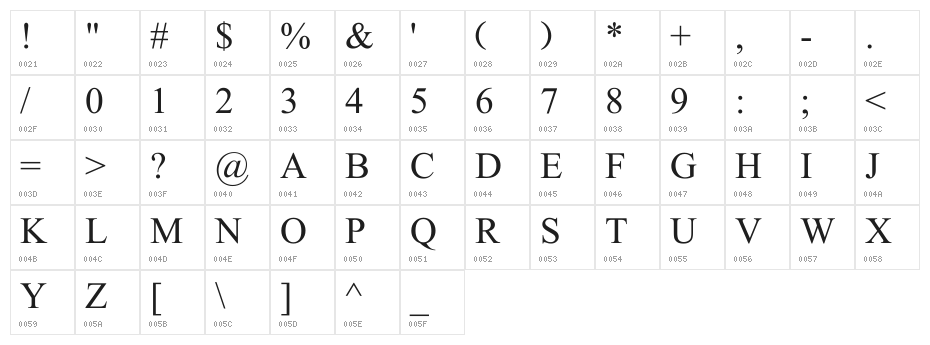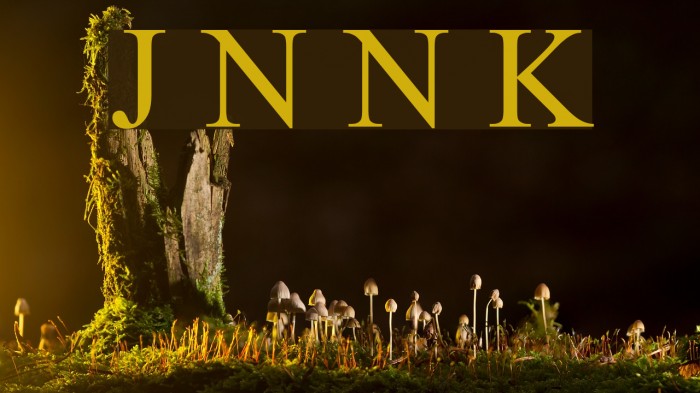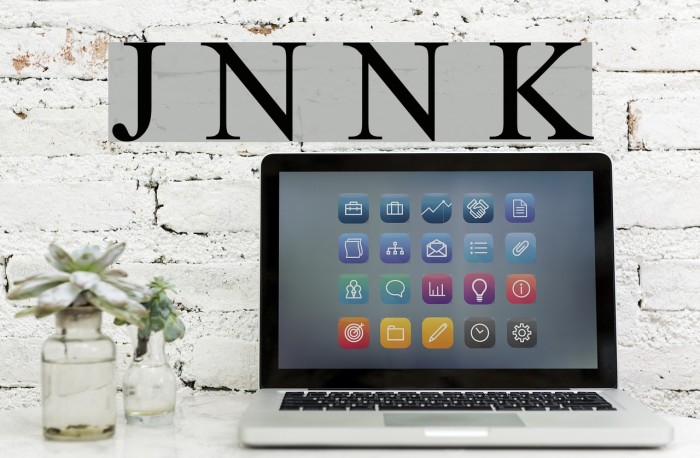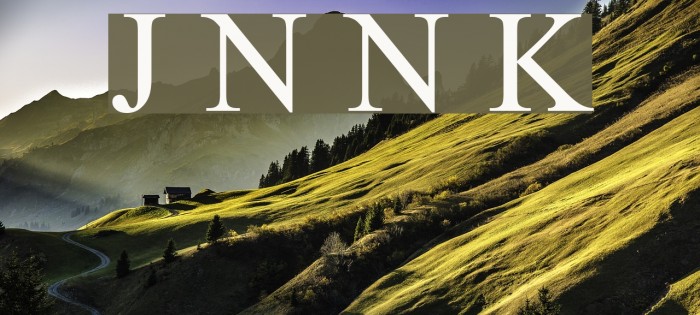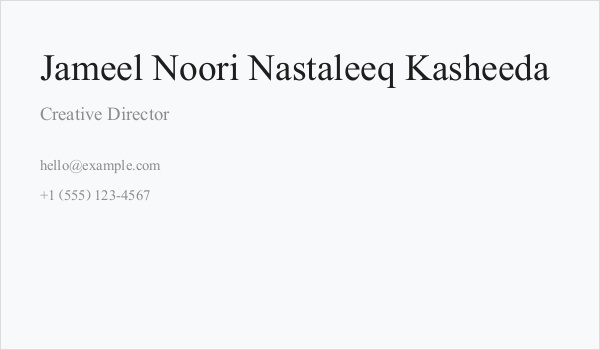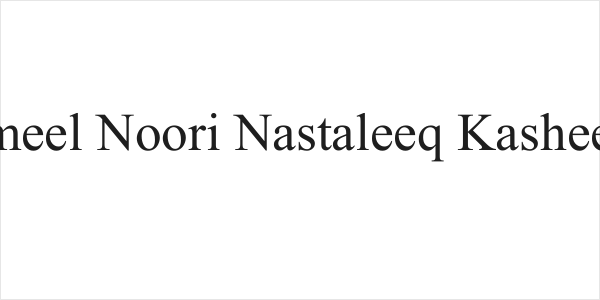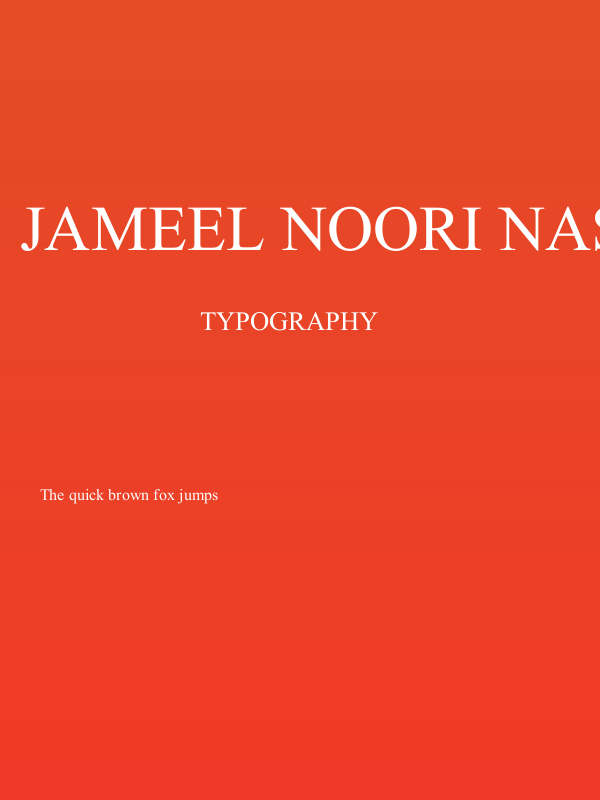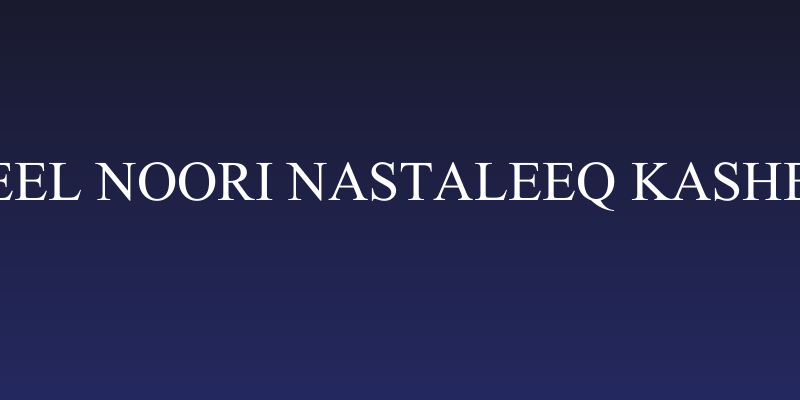
Jameel Noori Nastaleeq Kasheeda Font
Jameel Noori Nastaleeq Kasheeda Description
This font features a classic serif style with elegant and refined strokes. The characters exhibit a balanced contrast between thick and thin lines, giving it a sophisticated appearance. The uppercase letters are bold and commanding, while the lowercase letters maintain a graceful flow. The numerals are clear and well-proportioned, ensuring readability. Special characters are distinct and harmonize well with the overall design. This font is versatile, suitable for both formal and creative projects, offering a timeless aesthetic.